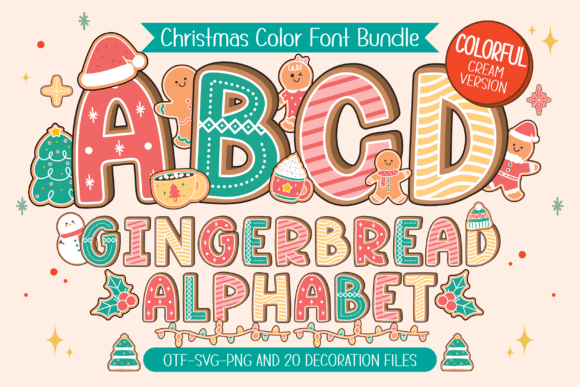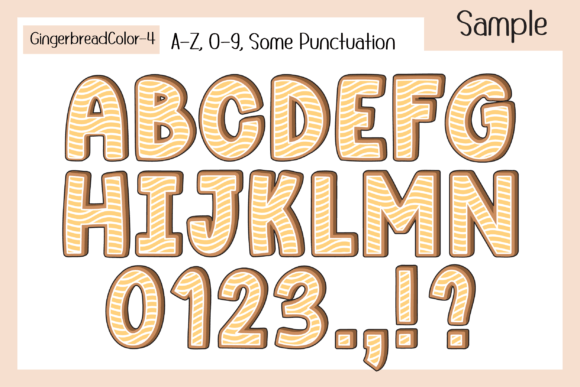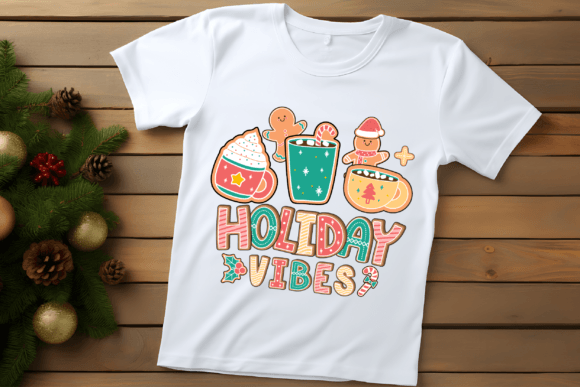
Gingerbread Font
Introducing “Gingerbread Alphabet” in the Colorful Cream version, a playful Christmas font inspired by the festive delight of gingerbread cookies topped with vibrant, colorful cream. This cheerful color font consists of four Christmas-themed color styles and includes 20 bonus matching clip arts, making it the perfect choice for adding holiday joy to your Christmas posters, T-shirts, branding, custom DIY craft projects, quotes, personalized names, and more. “Gingerbread Alphabet” brings a burst of color and festive spirit to all your seasonal creations.